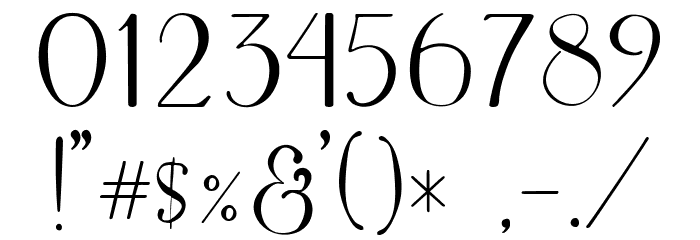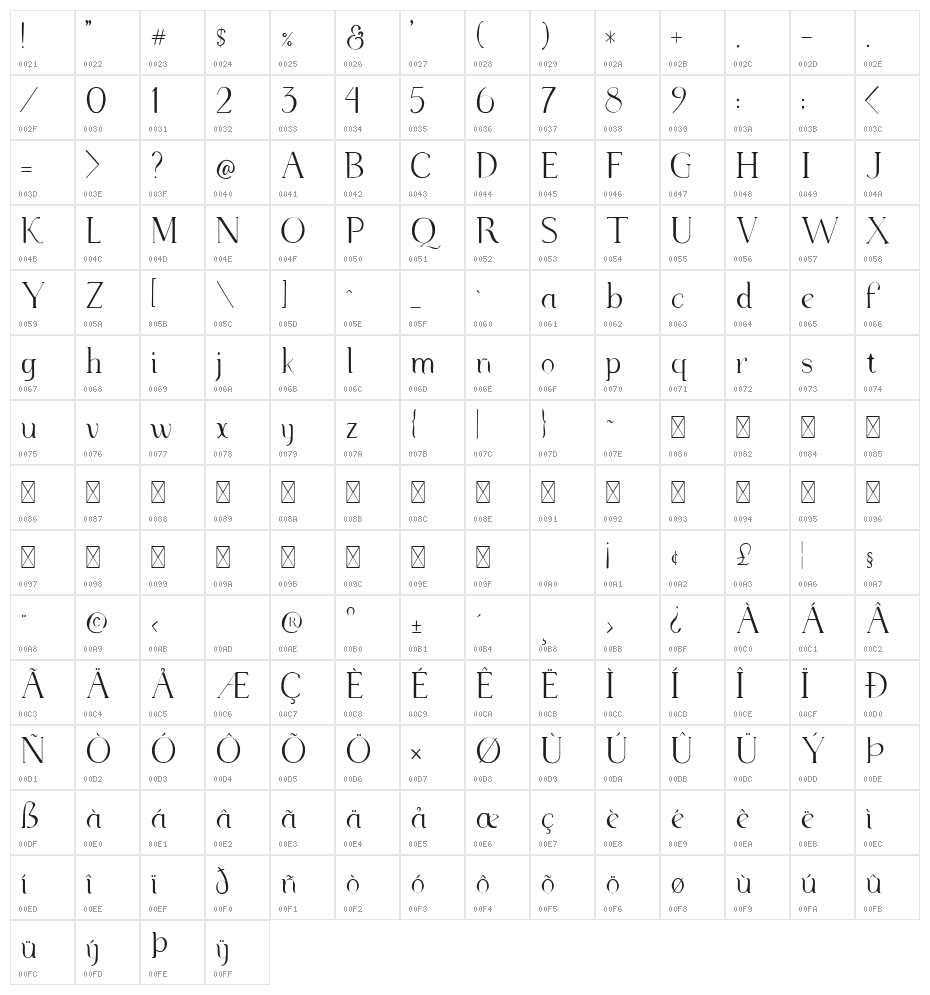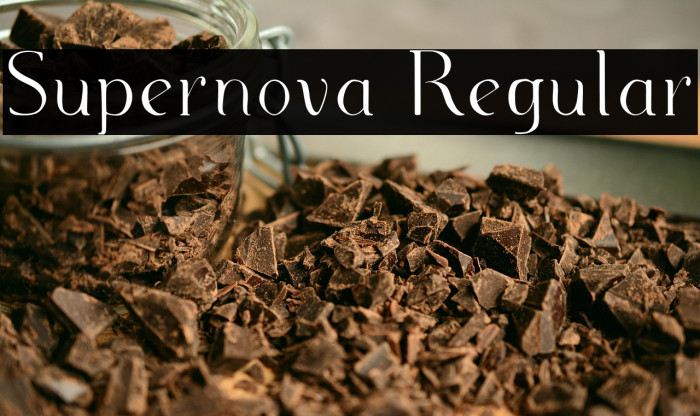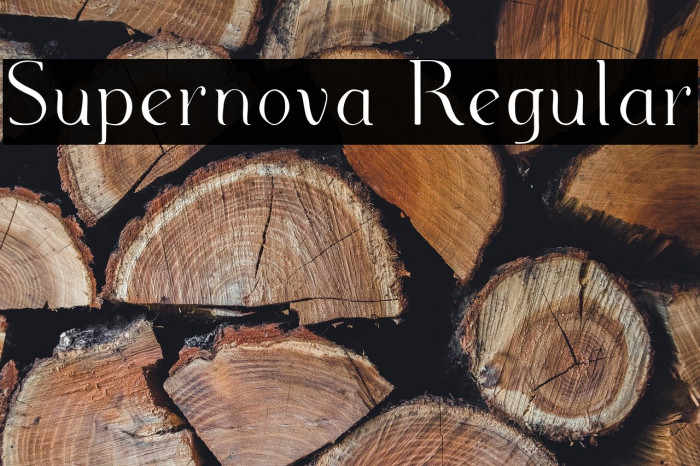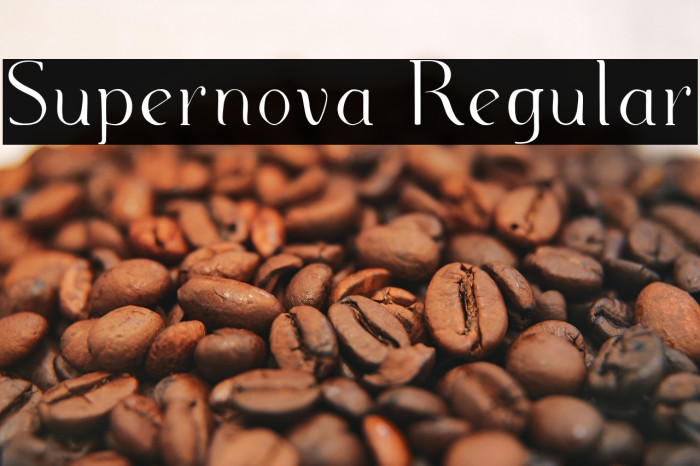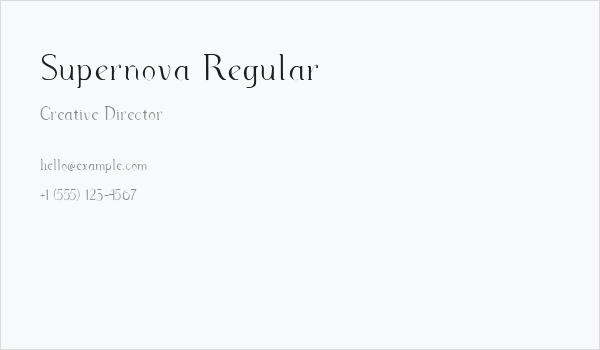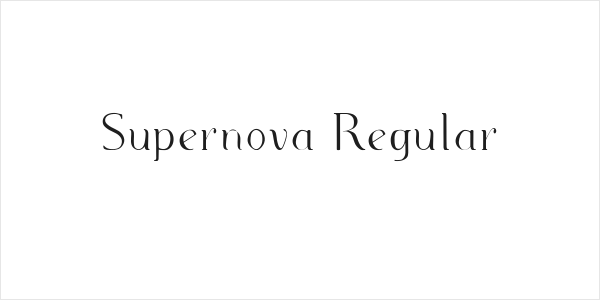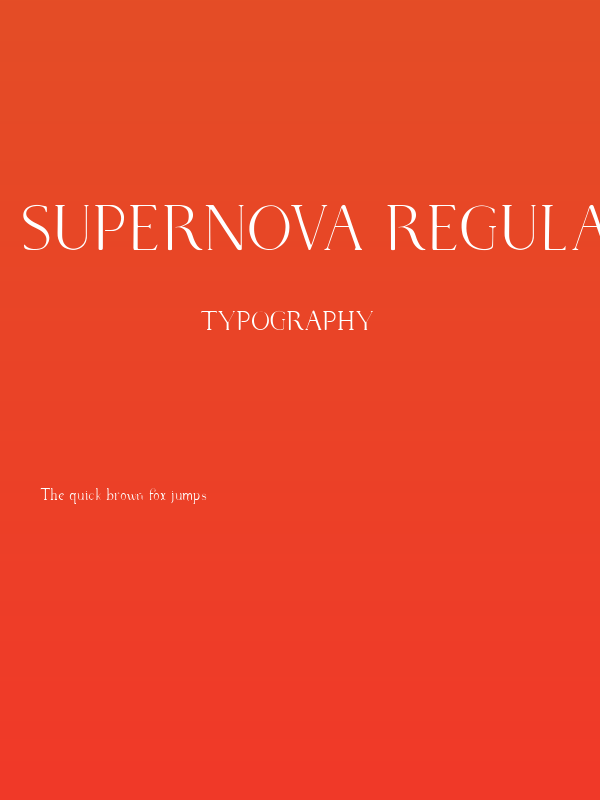
Supernova Regular Font
Supernova Regular Description
This font features a unique blend of elegance and modernity, characterized by its thin, elongated serifs and high contrast between thick and thin strokes. The uppercase letters exhibit a refined and sophisticated style, while the lowercase letters maintain a graceful flow with subtle curves. The numerals are distinct and clear, ensuring readability. Special characters are thoughtfully designed, adding to the font's versatility. Overall, it exudes a sense of sophistication and is suitable for projects that require a touch of class and modern flair.
| Use Case | Headlines, Logos, Editorial design |
| Proposed Projects | Ideal for luxury branding, editorial design, invitations, and high-end product packaging. |